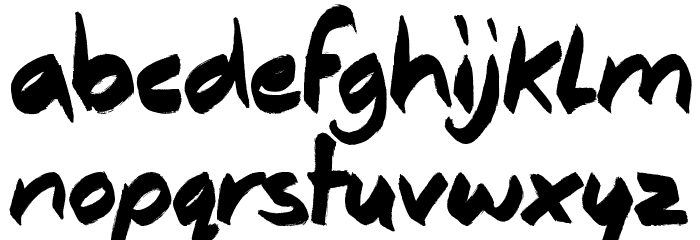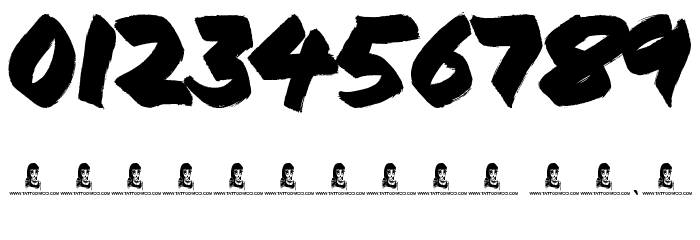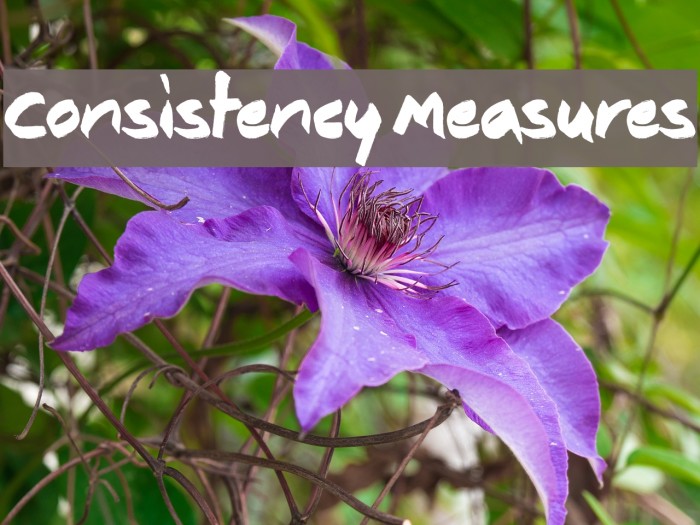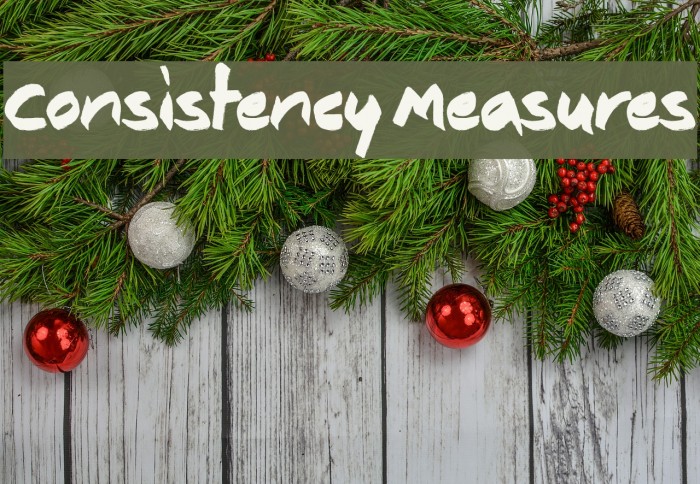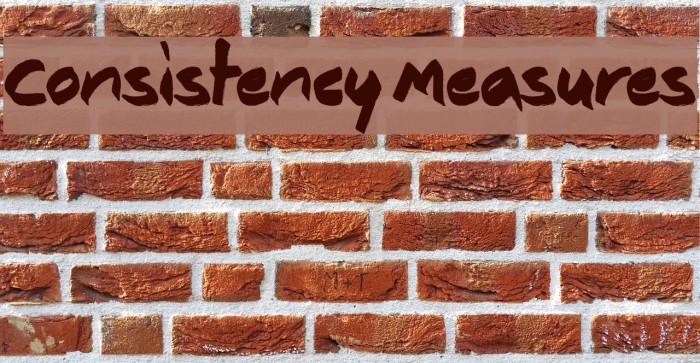
Consistency Measures Font
This font features a bold, expressive style with a hand-painted appearance. The characters are thick and dynamic, with a brush-like texture that gives them a lively and energetic feel. The uppercase and lowercase letters maintain a consistent style, with rounded edges and a slightly irregular baseline, enhancing the hand-drawn effect. The numerals and special characters follow the same aesthetic, making the font suitable for creative and artistic projects. Its bold strokes and unique character shapes make it stand out, perfect for grabbing attention.
A bold, hand-painted style font with a dynamic and expressive appearance.
- Proposed Projects: Ideal for posters, branding, packaging, and any project requiring a bold, artistic touch.